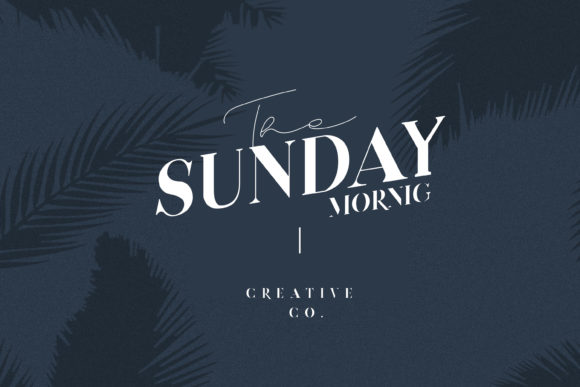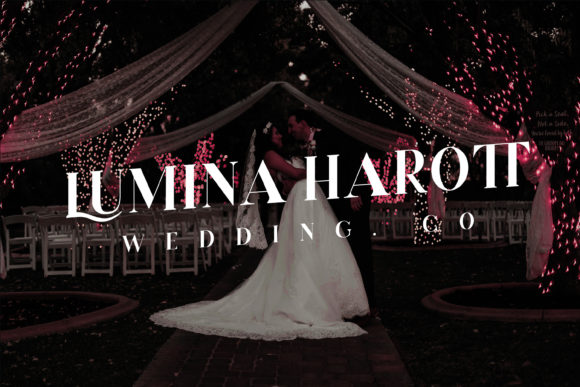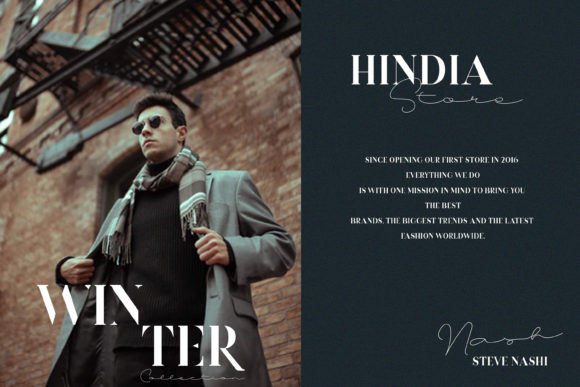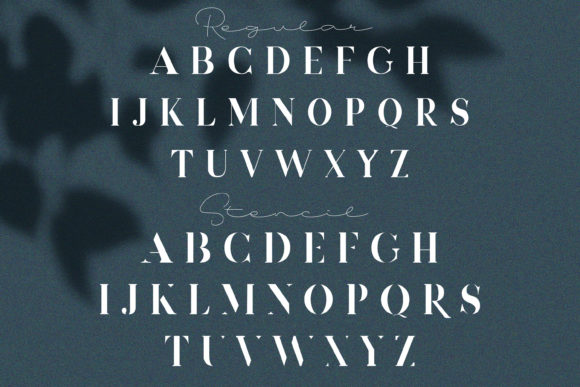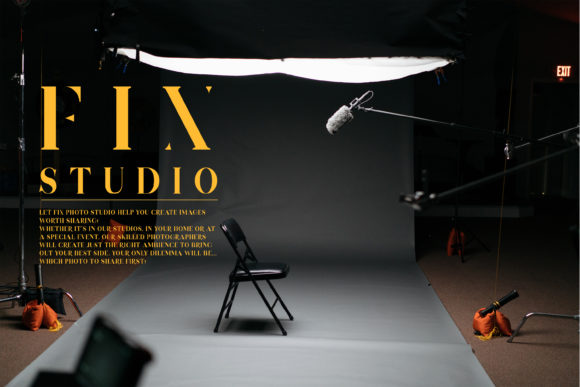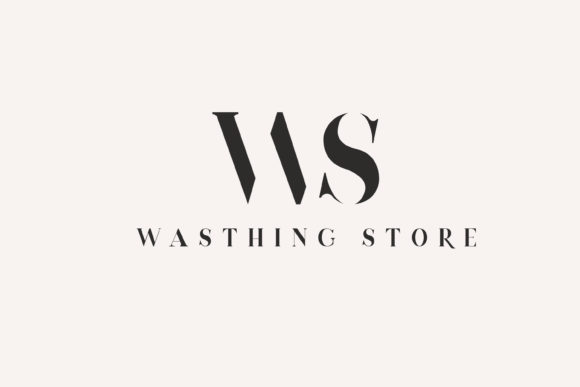
Introducing Devitos Font: Elevate Your Designs with Elegance and Creativity
In the world of typography, a font can make or break a design. For designers and crafters looking for a typeface that exudes modernity, elegance, and creativity, Devitos Font is an exceptional choice. This stunning serif font boasts a neat and beautiful arrangement of letters, making it perfect for both formal and non-formal designs. In this article, we’ll dive into the features and benefits of Devitos Font, and explore how it can elevate your designs to the next level.
What is Devitos Font?
Devitos is a modern, elegant, and creative serif font designed to add a touch of sophistication to any design project. Its unique arrangement of letters creates a visually appealing rhythm, making it perfect for a wide range of applications, from luxury branding to digital marketing materials. Whether you’re designing a logo, brochure, or website, Devitos Font is sure to make your project stand out.
Key Features of Devitos Font
- Modern and Elegant Design: Devitos Font features a sleek and contemporary design, making it perfect for designers looking for a typeface that exudes sophistication and style.
- Neat and Beautiful Arrangement of Letters: The font’s carefully crafted letter arrangement creates a beautiful rhythm, making it easy to read and visually appealing.
- Serif Font: The subtle serifs on Devitos Font add a touch of elegance and refinement, making it perfect for formal and non-formal designs.
- Highly Versatile: Devitos Font can be used for a wide range of design projects, from logos and branding to digital marketing materials and more.
Benefits of Using Devitos Font
- Adds Sophistication and Elegance: Devitos Font is designed to add a touch of sophistication and elegance to any design project, making it perfect for luxury brands and high-end designs.
- Improves Readability: The font’s neat and beautiful arrangement of letters makes it easy to read, even at small sizes.
- Increases Versatility: Devitos Font can be used for a wide range of design projects, making it a valuable addition to any designer’s toolkit.
- Unique and Creative: Devitos Font is a unique and creative typeface that will help your designs stand out from the crowd.
How to Use Devitos Font in Your Designs
- Pair with Other Fonts: Devitos Font pairs well with other sans-serif fonts, making it perfect for designs that require a mix of serif and sans-serif typefaces.
- Experiment with Font Sizes: Devitos Font looks great at a range of font sizes, from large headings to small body text.
- Use for Headings and Titles: The font’s elegant design makes it perfect for headings and titles, adding a touch of sophistication to any design.
Devitos Font is an exceptional typeface that offers a unique blend of modernity, elegance, and creativity. With its neat and beautiful arrangement of letters, this serif font is perfect for designers and crafters looking to add a touch of sophistication to their designs. Whether you’re working on a luxury brand, digital marketing materials, or simply looking for a typeface that will make your designs stand out, Devitos Font is an excellent choice.